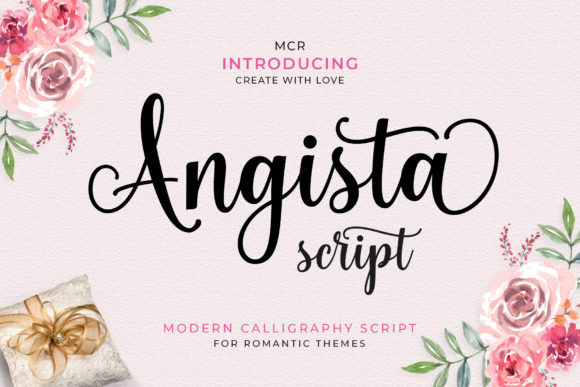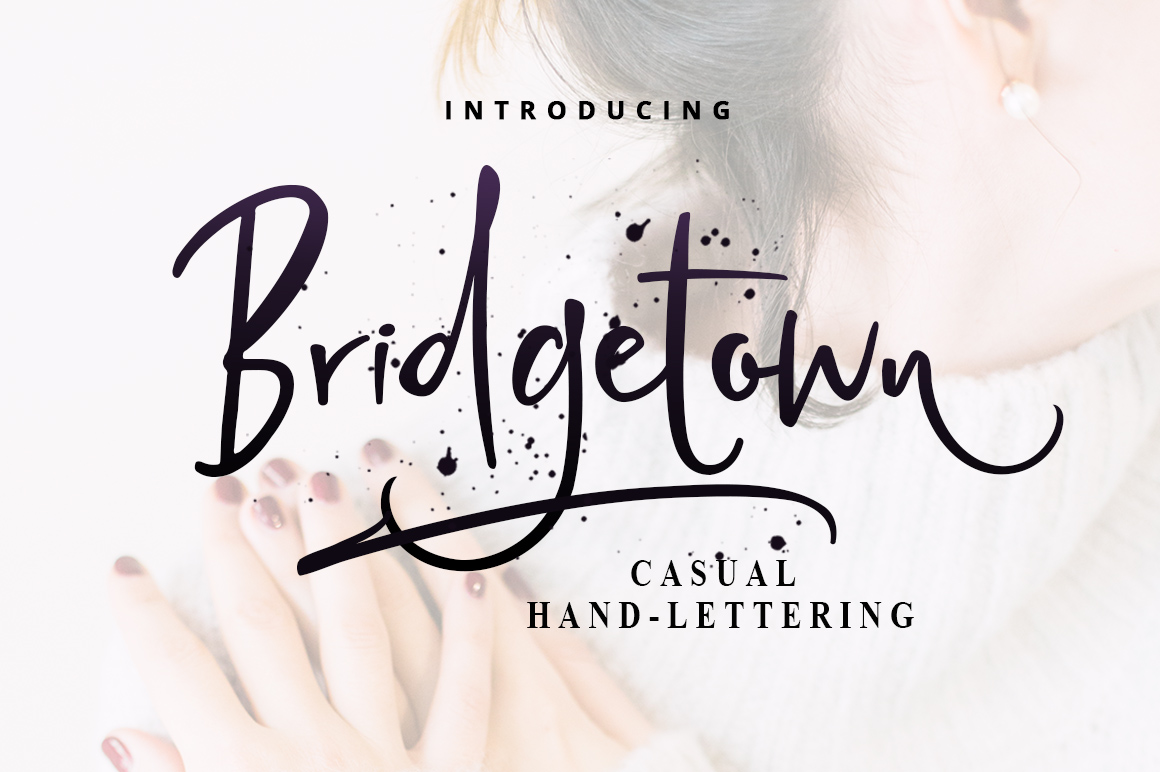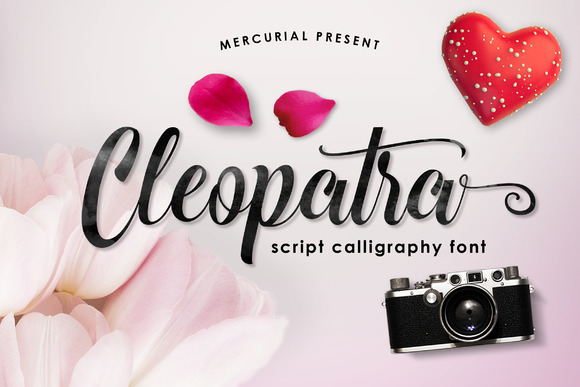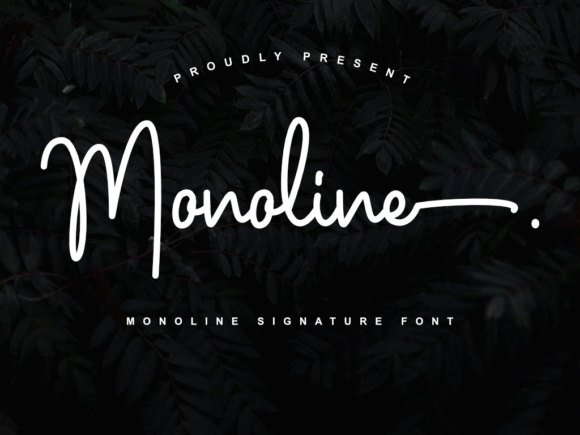
Free Cursive Fonts: 23 Best Elegant Script Picks (2026)
Free cursive fonts are the fastest way to add a refined, handwritten feel to a wedding invitation, logo, or quote graphic without spending a dime. This list rounds up 23 free cursive fonts with elegant, flowing letterforms, most of them PUA encoded so every swash and alternate is easy to reach, pulled from Creative Fabrica’s most downloaded free fonts.
Quick Picks
Best Overall Lightning Script – a stunning handwritten typeface for branding and invitations
Best for Weddings Berlyant – a distinct script suited to wedding invitations and thank-you cards
Most Popular Anastasia (paid tier) – a well-rounded handwritten favorite, over 128,000 downloads
Best Alternates Angista Script – PUA encoded with characters that dance along the baseline
Why Free Cursive Fonts Are Worth Downloading
A good free cursive font can do the same job as a $30 premium script, especially for one-off projects like a single wedding invitation or a small business logo. Look for PUA encoding when you download free cursive fonts, since it means the swashes and alternate letterforms sit on accessible keystrokes instead of being buried in a glyph panel you’d need special software to reach. Most fonts below list their PUA status directly in the description.
23 Free Cursive Fonts
Lightning Script free font
1. Lightning Script
Best for: General Design
The Lightning Script font is a stunning work of art. This beautiful handwritten typeface is great for adding a personal touch to your designs.
Angista Script free font
2. Angista Script
Best for: General Design
Angista Script is a beautiful and delicate script font. Featuring characters that dance along the baseline, this font will add a luxury spark to any design project that you wish to create!
Elizabeth free font
3. Elizabeth
Best for: General Design
Elizabeth is an elegant script font. designs!
Thunder free font
4. Thunder
Best for: General Design
Thunder is a stylish and modern handwritten font that beautifully combines a flowing style with individually charming characters!
Mama free font
5. Mama
Best for: General Design
Mama feels incredibly elegant and flowing.
Callifornia free font
6. Callifornia
Best for: General Design
Callifornia is a stylish and delicate handwritten font. It maintains its classy calligraphic influences while feeling contemporary and fresh.
Cleopatra free font
7. Cleopatra
Best for: General Design
Just as pharaoh Cleopatra, this stunning font is a true beauty. The letters in this font are very smooth and elegant.
Rachelyn free font
8. Rachelyn
Best for: General Design
Rachelyn is an elegant script font with heart ornaments and a beautiful rhythm as each letter flows harmoniously into the next.
Kimberlyn free font
9. Kimberlyn
Best for: General Design
Kimberlyn is a lovely and delicate script font that exudes elegance and class. This font was particularly crafted for those who need a beautiful and refreshing look to their designs.
Bridgetown Font  free font
10. Bridgetown Font
Best for: General Design
Bridgetown is a gorgeous typeface crafted for giving your designs the most elegant impression; with a visible charm, Bridgetown is a highly adaptable and gorgeous script you will find yourself using endlessly.
Mueband free font
11. Mueband
Best for: General Design
Mueband is a magical handwritten font carefully created with a touch of elegance. This is a beautiful combination of timeless elegance and authentic calligraphy.
Valeska free font
12. Valeska
Best for: General Design
Valeska is a romantic and sweet calligraphy typeface with characters that dance along the baseline. It will add a luxury spark to any design project that you wish to create!
Anabelle Script free font
13. Anabelle Script
Best for: General Design
Anabelle Script is a beautiful and delicate script font.
Nouradilla Script Free Version free font
14. Nouradilla Script Free Version
Best for: Wedding Stationery, Cards & Stationery
Nouradilla Script is a beautiful elegant, free handwriting font. This font is great for wedding invites, cards, signs and much more.
Watermelon free font
15. Watermelon
Best for: General Design
Watermelon is a trendy and chic script font. .
Monoline free font
16. Monoline